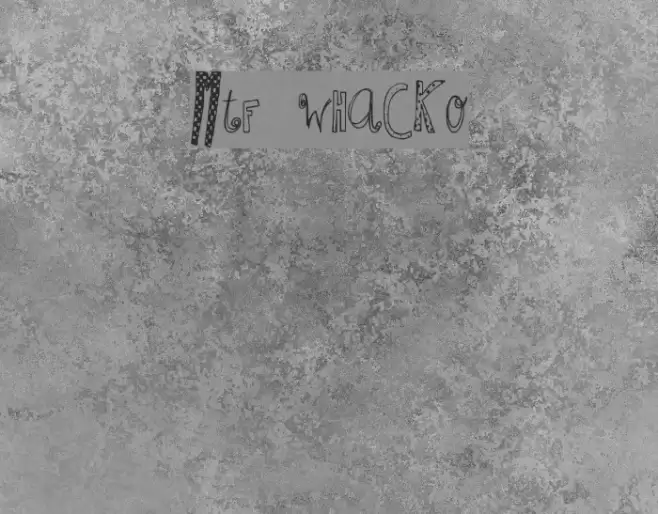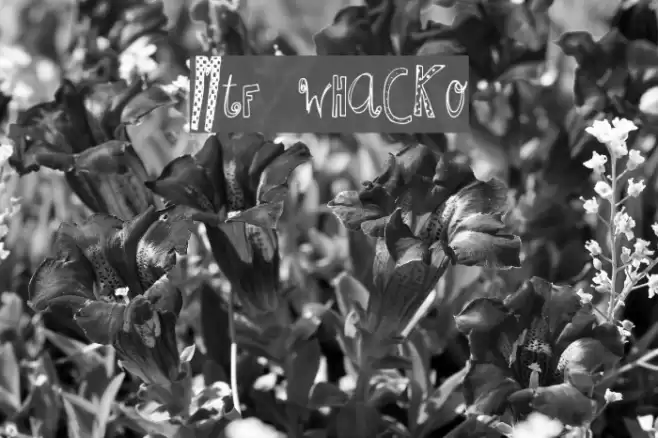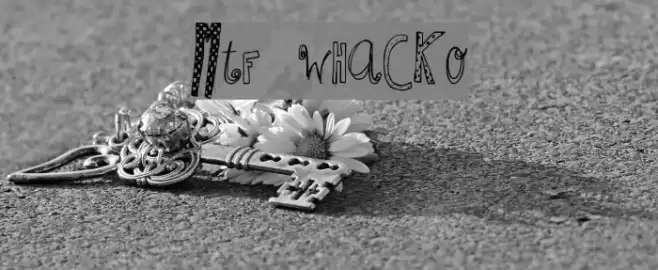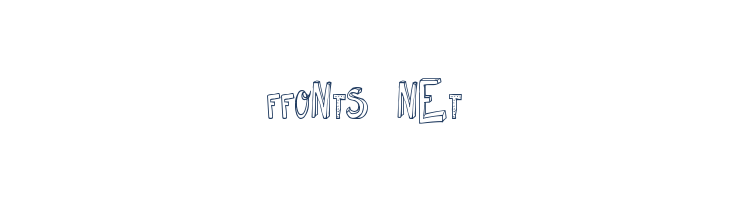
MTF Whacko Font
MTF Whacko Description
This playful and whimsical font features a variety of quirky and uneven letterforms, each with its own unique decorative elements. The characters are adorned with dots, stripes, and swirls, giving them a hand-drawn and artistic feel. The font has a lively and energetic appearance, with each letter exhibiting a distinct personality. The irregular shapes and varying line thicknesses contribute to its dynamic and fun style, making it ideal for creative and informal projects. The font's eccentric design is perfect for capturing attention and adding a touch of humor and creativity to any text.
A playful, whimsical font with quirky, decorative letterforms from Uncategorized fonts.
- Proposed Projects: Ideal for children's books, playful invitations, creative posters, and artistic branding.
- Overall Style: Whimsical, Artistic, Playful
- Use Case: Headlines, Logos, Creative projects